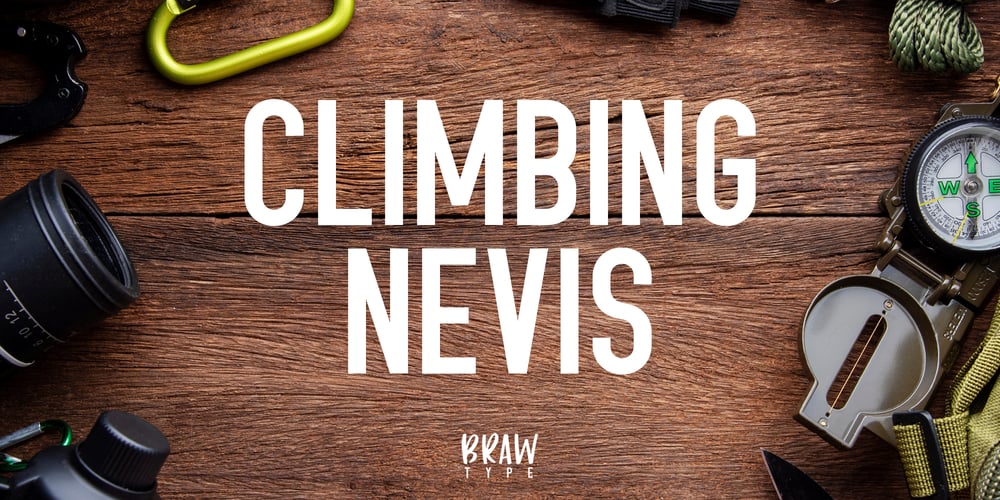
Climbing Nevis
Climbing Nevis font
Climbing Nevis Font Family was designed by Rae Arnott and published by Braw Type. Climbing Nevis contains 3 styles and family package options. Put on your climbing boots and go on an adventure!Climbing Nevis is a modern condensed display font which comes in 3 exciting styles.With big, bold characters, Climbing Nevis is a perfect choice for headings, branding, signage, advertising, magazine layouts and much more! Working on an adventure themed project? Try Climbing Nevis Rough for a rugged, outdoor look.FEATURES Uppercase and lowercase letters Numbers, punctuation and symbols Multilingual support